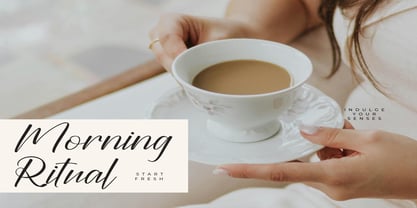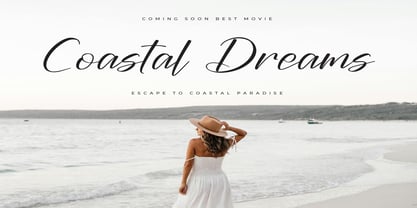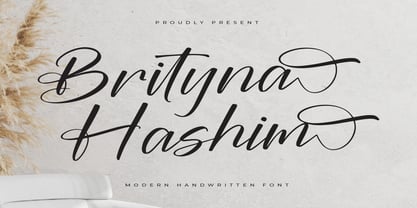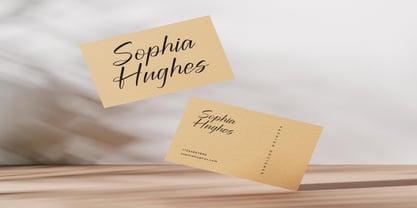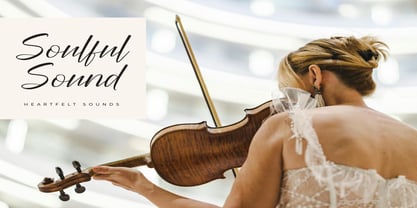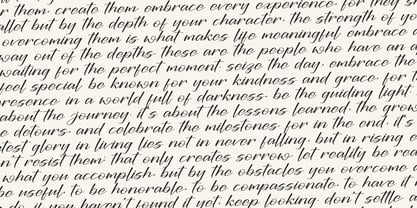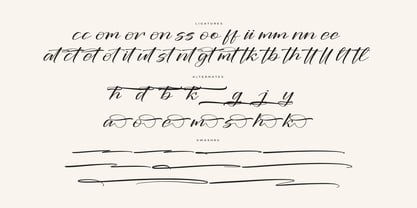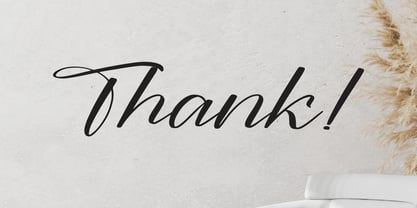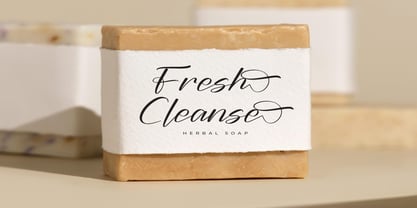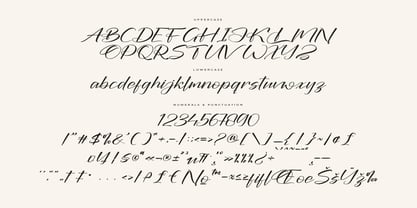
Brityna Hashim
The Brityna Hashim Font Family was designed by Heru Utama Putra and published by Letterena Studios. Brityna Hashim contains 2 styles and family package options.
Brityna Hashim – Monoline Handwritten Font , from Letterena, is a Luxury Script font, suitable for any projects such as: logos, branding projects, homeware designs, product packaging, mugs, quotes, posters, shopping bags, t-shirts, book covers, name card, invitation cards, greeting cards, label, photography, watermark, special events, and all your other luxury and beautiful projects that need a Luxury Script taste.